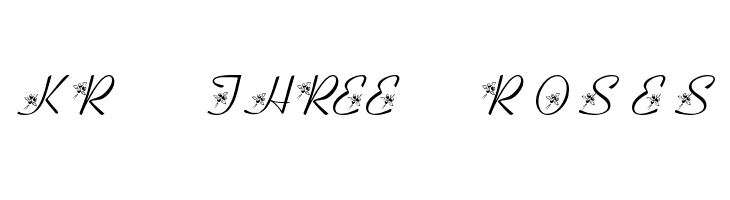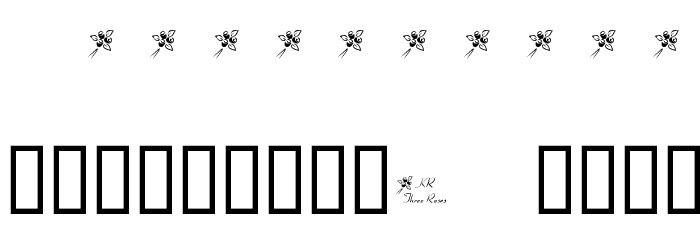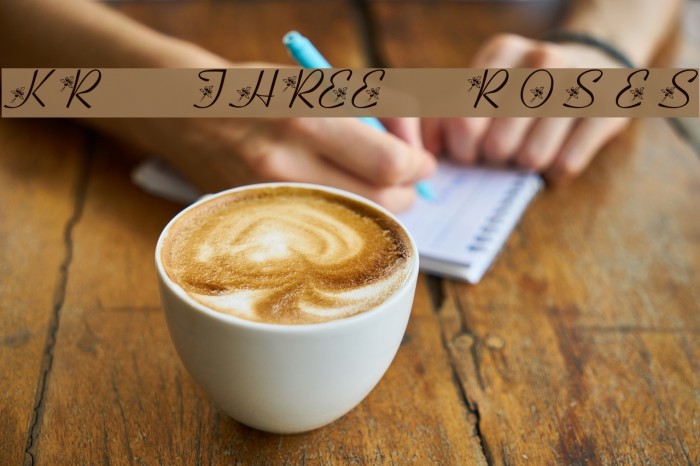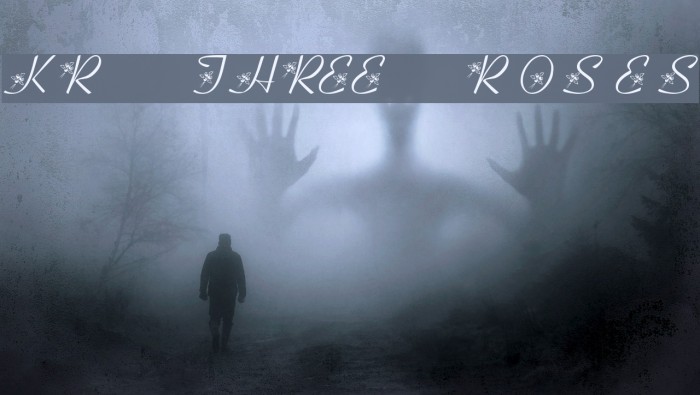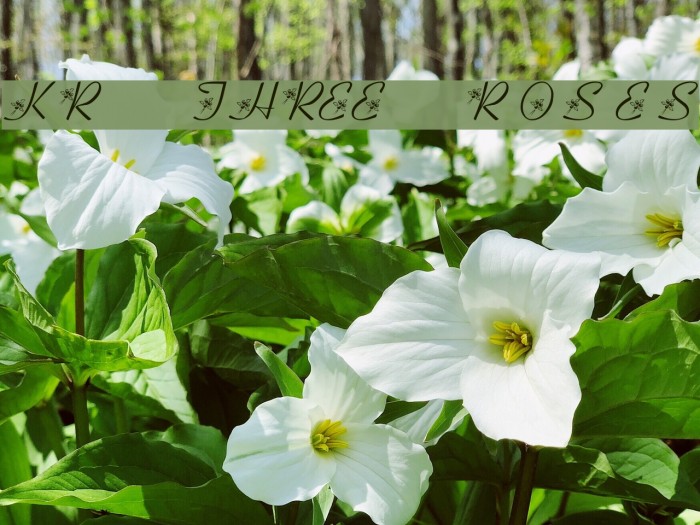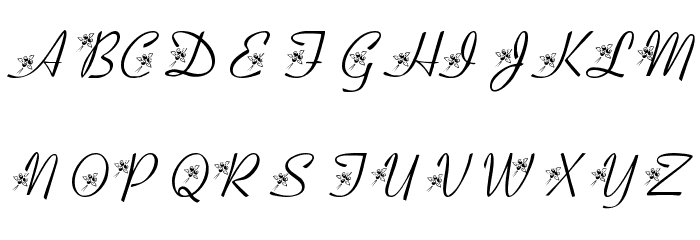
KR Three Roses Font
KR Three Roses Description
This decorative font features a unique blend of elegance and whimsy, characterized by its floral embellishments integrated into each letter. The uppercase and lowercase letters are designed with a flowing script style, adorned with intricate rose motifs that add a touch of sophistication and charm. The font maintains a consistent stroke width, providing a balanced and harmonious appearance. Its artistic flair makes it ideal for creative projects that require a touch of nature-inspired beauty.
A decorative script font with floral embellishments and elegant design.
- Proposed Projects: Ideal for wedding invitations, greeting cards, branding projects, and decorative posters.
- Use Case: Logos, Invitations, Decorative text